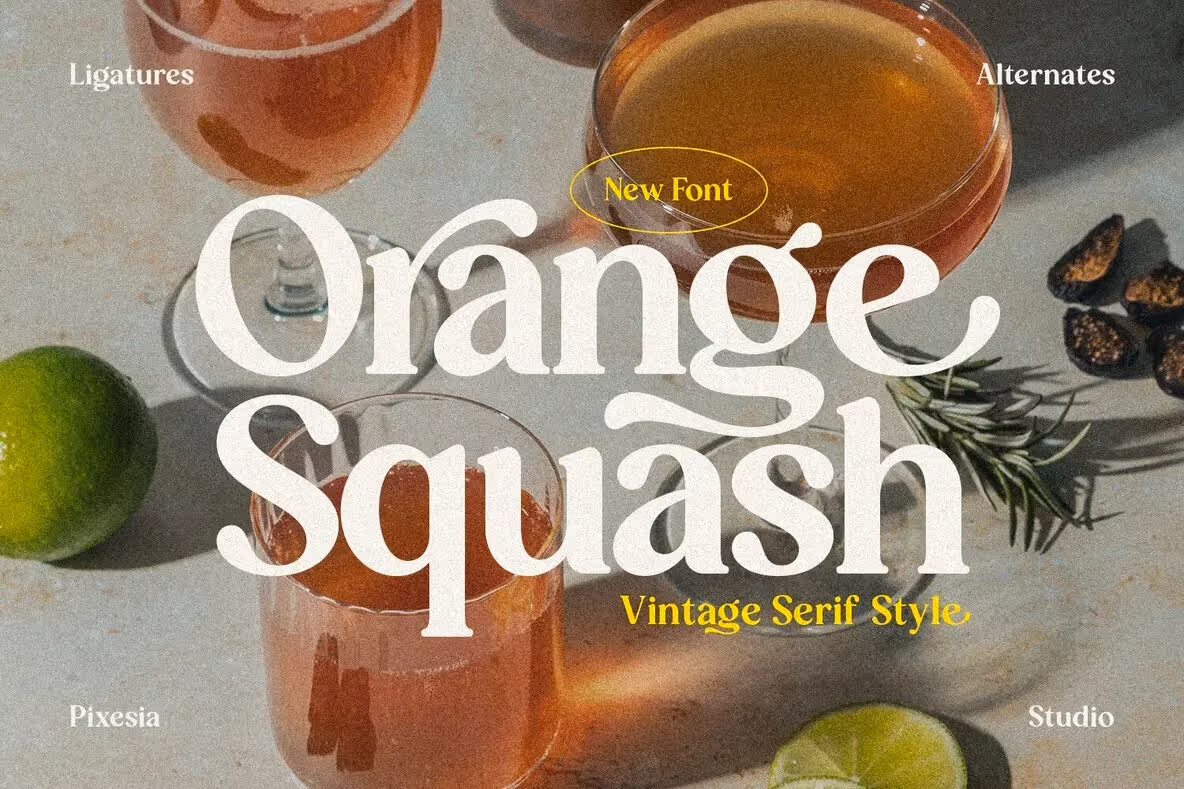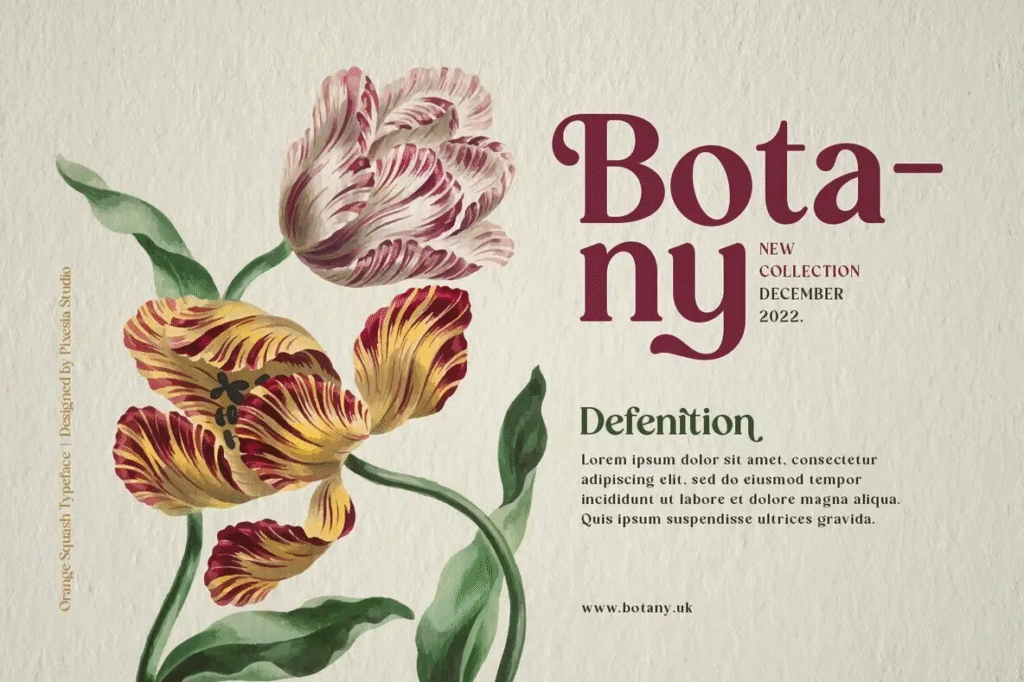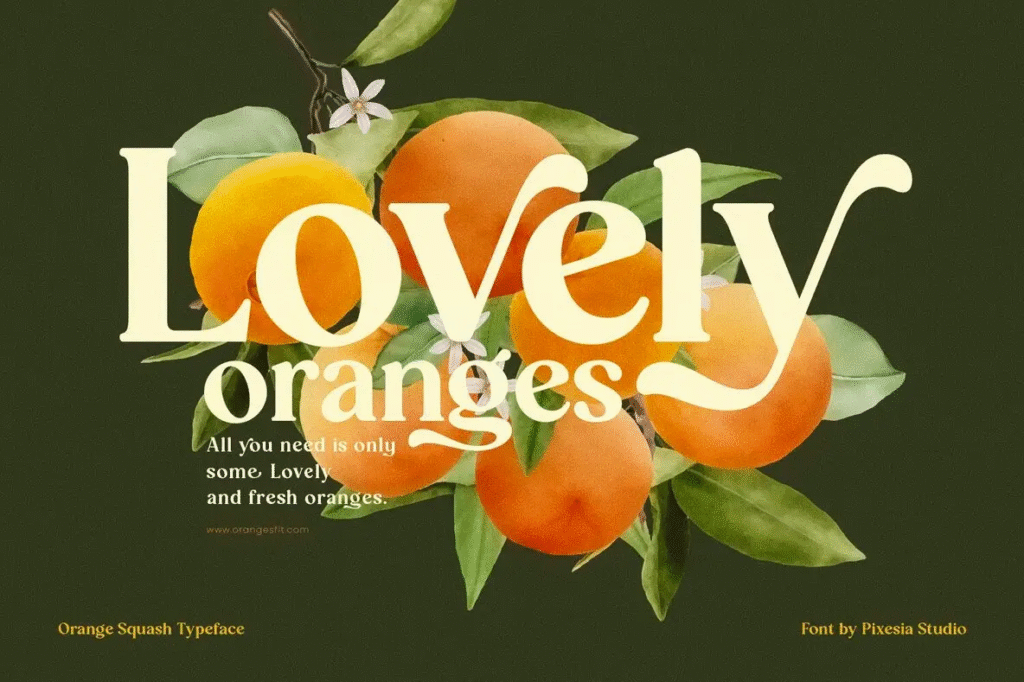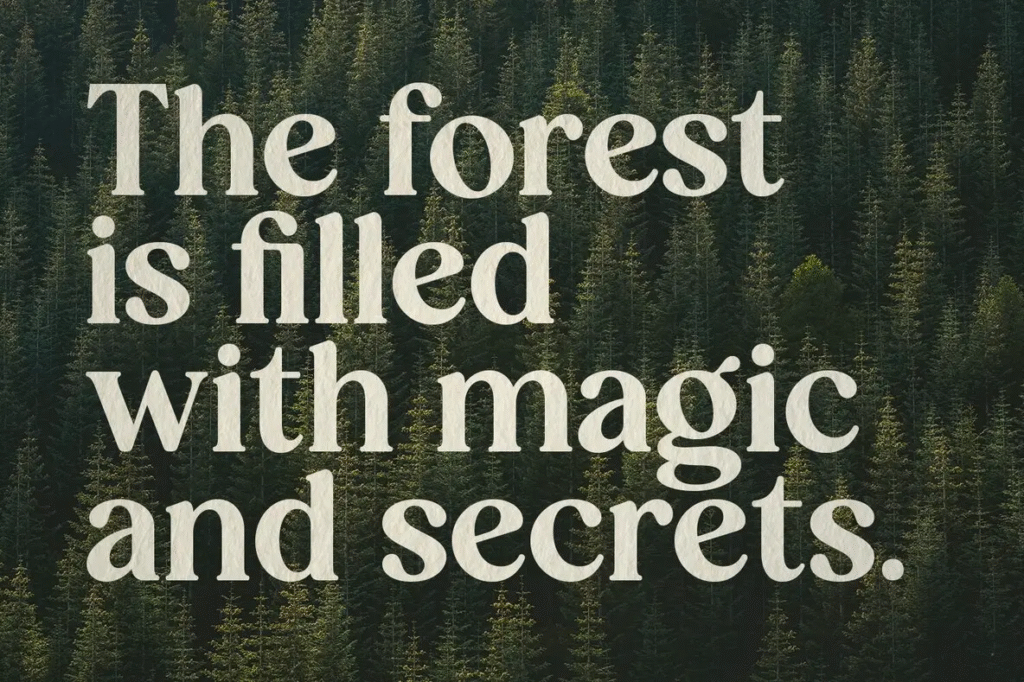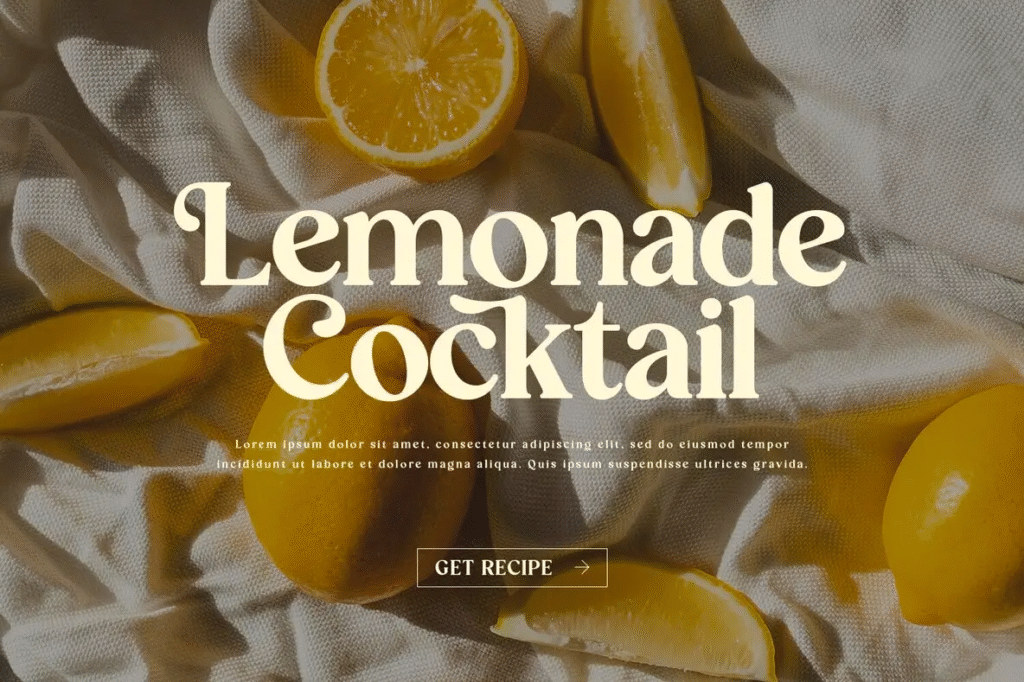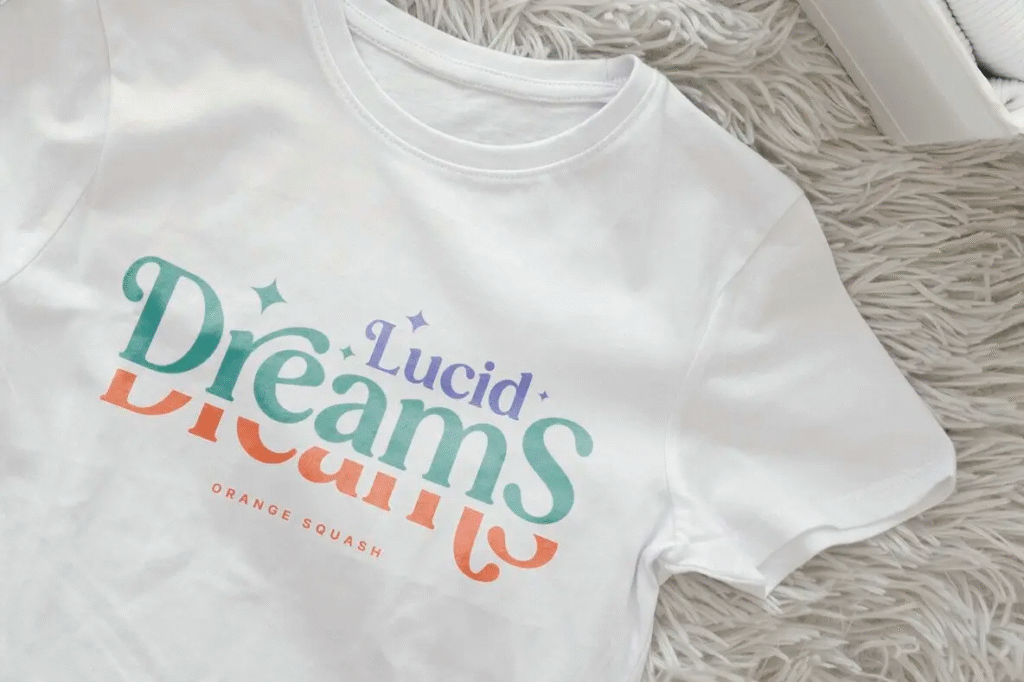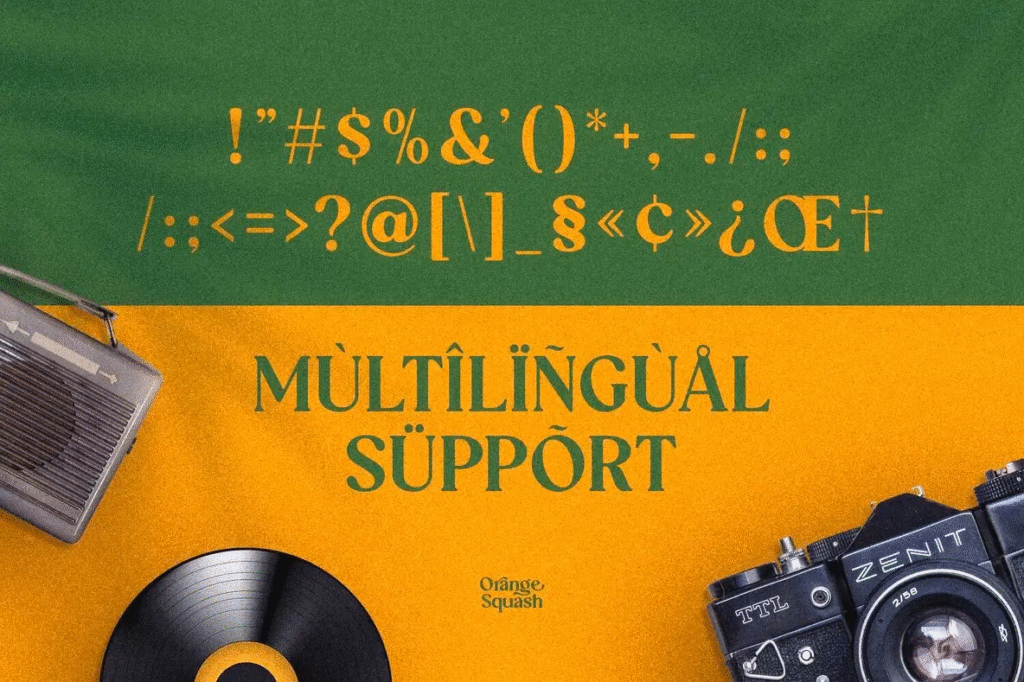
Orange Squash Font
Orange Squash bold vintage serif font with chunky serifs and playful retro curves.
Orange Squash serif font showcasing bold vintage style.
Retro-inspired typography design using Orange Squash font.
Chunky serif details of Orange Squash typeface.
Playful and nostalgic font design sample.
Orange Squash typeface applied in retro-themed layout.
Vintage logo mockup with Orange Squash font.
Orange Squash – Bold Vintage Serif
Orange Squash by Pixesia Studio is a bold, playful serif typeface with a nostalgic retro touch. With its chunky serifs and lively curves, Orange Squash instantly grabs attention and brings personality to any design project.
This font is perfect for creating standout headlines, logos, posters, and branding materials. Its vintage appeal makes it a strong choice for retro-themed projects while remaining versatile enough for modern use. Whether you’re designing packaging, social media graphics, or editorial layouts, Orange Squash delivers both character and readability.
Design Features
• Chunky Serifs – Strong, distinctive shapes that stand out.
• Playful Curves – Whimsical design details for creative flair.
• Vintage Appeal – Perfect for retro and nostalgic aesthetics.
Bring boldness and charm to your next project with Orange Squash.
Orange Squash Font
Orange Squash is a bold, playful vintage serif by Pixesia Studio, featuring chunky serifs and lively curves. Perfect for retro-inspired headlines, logos, and branding.